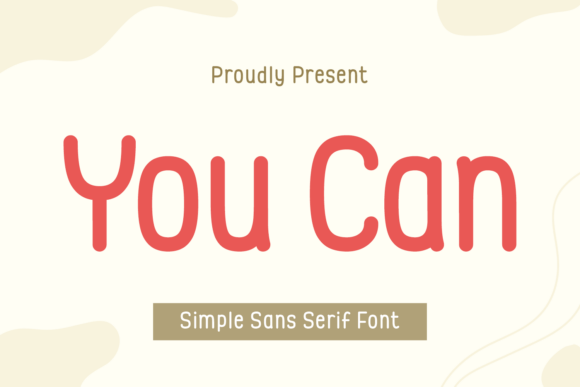
You Can Font: The Ultimate Design Companion for Diverse Applications
In the realm of typography, a font can make all the difference in the success of a design project. With the vast array of fonts available, finding the perfect one that suits your creative vision can be a daunting task. However, if you’re looking for a versatile and aesthetically pleasing font that can elevate your designs, look no further than the “You Can” font. This beautifully crafted Sans Serif font has been making waves in the design community, and for good reason. In this article, we’ll dive into the world of “You Can” and explore its features, applications, and benefits.
Presenting “You Can”
The “You Can” font is a stunning Sans Serif typeface that boasts a unique blend of romantic undertones and youthful energy. This distinctive combination makes it an ideal choice for a wide range of design applications. Whether you’re creating Valentine’s Day-themed designs, Back to School materials, or simply looking for a font that can add a touch of elegance to your projects, “You Can” is the perfect companion.
Diverse Design Applications
One of the standout features of the “You Can” font is its incredible versatility. This font is more than just a typeface; it’s a tool for bold branding, impactful social media posts, and charming paper crafts. Its readability makes it an exceptional choice for books, while its youthful energy lends itself to Back to School themes. Additionally, “You Can” is perfect for:
- Valentine’s Day Creations: The romantic undertones of “You Can” make it an ideal choice for Valentine’s Day-themed designs, such as greeting cards, posters, and social media posts.
- Back to School Themes: The youthful energy of “You Can” makes it perfect for Back to School materials, such as flyers, brochures, and worksheets.
- Bold Branding: “You Can” is an excellent choice for branding projects, as its unique blend of elegance and playfulness can help your brand stand out.
- Impactful Social Media Posts: The font’s versatility and readability make it perfect for creating engaging social media posts that capture the attention of your audience.
- Charming Paper Crafts: “You Can” is a great choice for paper craft projects, such as card making, scrapbooking, and origami.
Typographic Benefits
The “You Can” font offers a range of typographic benefits that make it an attractive choice for designers. Some of the key benefits include:
- Readability: “You Can” is designed to be highly readable, making it perfect for body text, headings, and titles.
- Versatility: The font’s unique blend of elegance and playfulness makes it suitable for a wide range of design applications.
- Legibility: “You Can” is designed to be highly legible, even at small font sizes.
T-Shirt Designs
The “You Can” font is also an excellent choice for t-shirt designs. Its unique blend of elegance and playfulness makes it perfect for creating eye-catching and memorable designs. Whether you’re designing for a client or creating your own merchandise, “You Can” is a great choice for:
- Fashion Brands: The font’s elegance and sophistication make it perfect for fashion brands looking to create stylish and eye-catching designs.
- Quote-Based Designs: “You Can” is ideal for quote-based designs, as its readability and legibility make it easy to read and understand.
- Fun and Playful Designs: The font’s playful undertones make it perfect for fun and playful designs, such as cartoon-based or humorous designs.
Book Designs
The “You Can” font is also an excellent choice for book designs. Its readability and legibility make it perfect for:
- Body Text: “You Can” is designed to be highly readable, making it perfect for body text.
- Headings and Titles: The font’s elegance and sophistication make it perfect for headings and titles.
- Novels and Fiction: “You Can” is ideal for novels and fiction books, as its readability and legibility make it easy to read and understand.
In conclusion, the “You Can” font is a versatile and aesthetically pleasing typeface that is perfect for a wide range of design applications. Its unique blend of elegance and playfulness makes it an ideal choice for Valentine’s Day creations, Back to School themes, bold branding, impactful social media posts, and charming paper crafts. Additionally, its readability and legibility make it an excellent choice for books and t-shirt designs. Whether you’re a designer, artist, or simply a creative individual, “You Can” is a font that can help you elevate your designs and capture the heart and eyes of your audience.